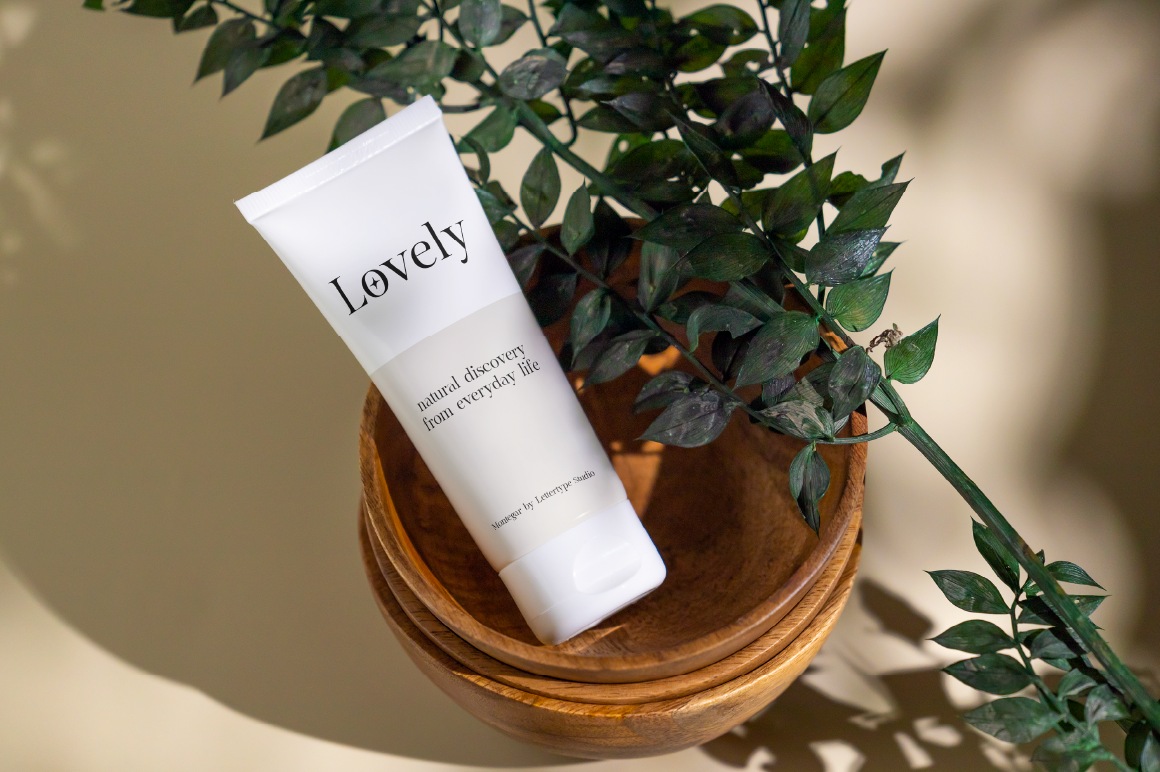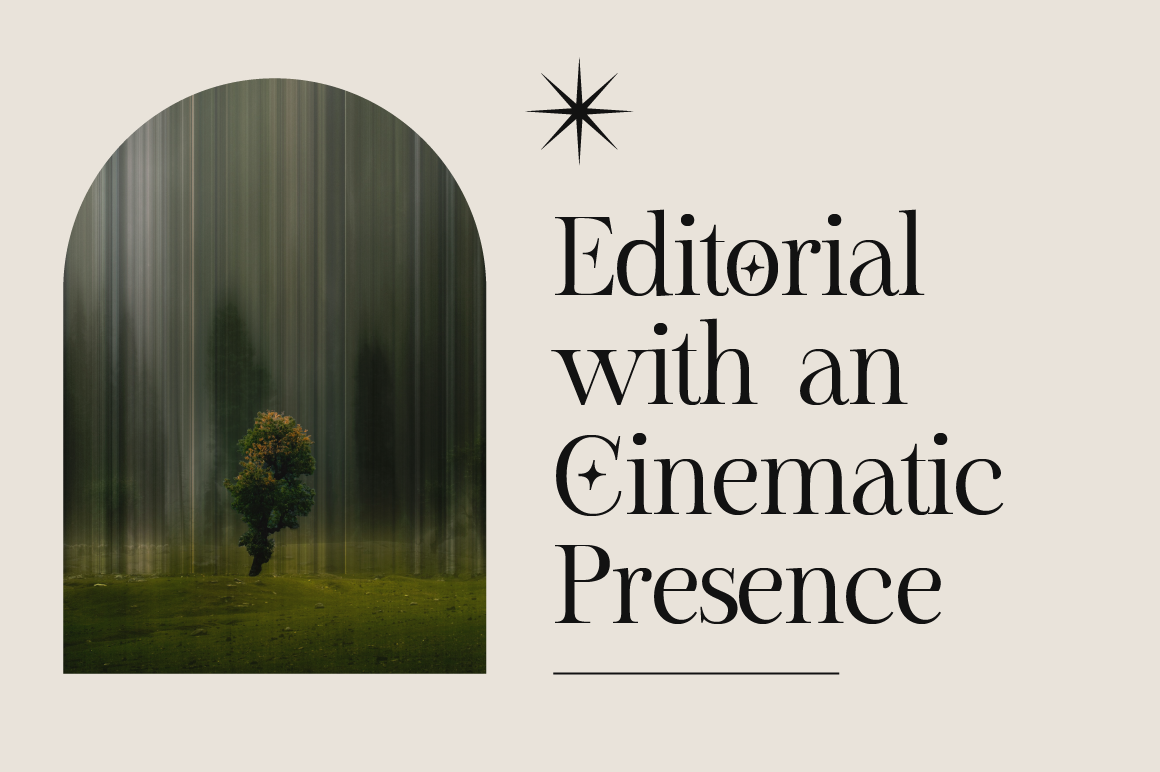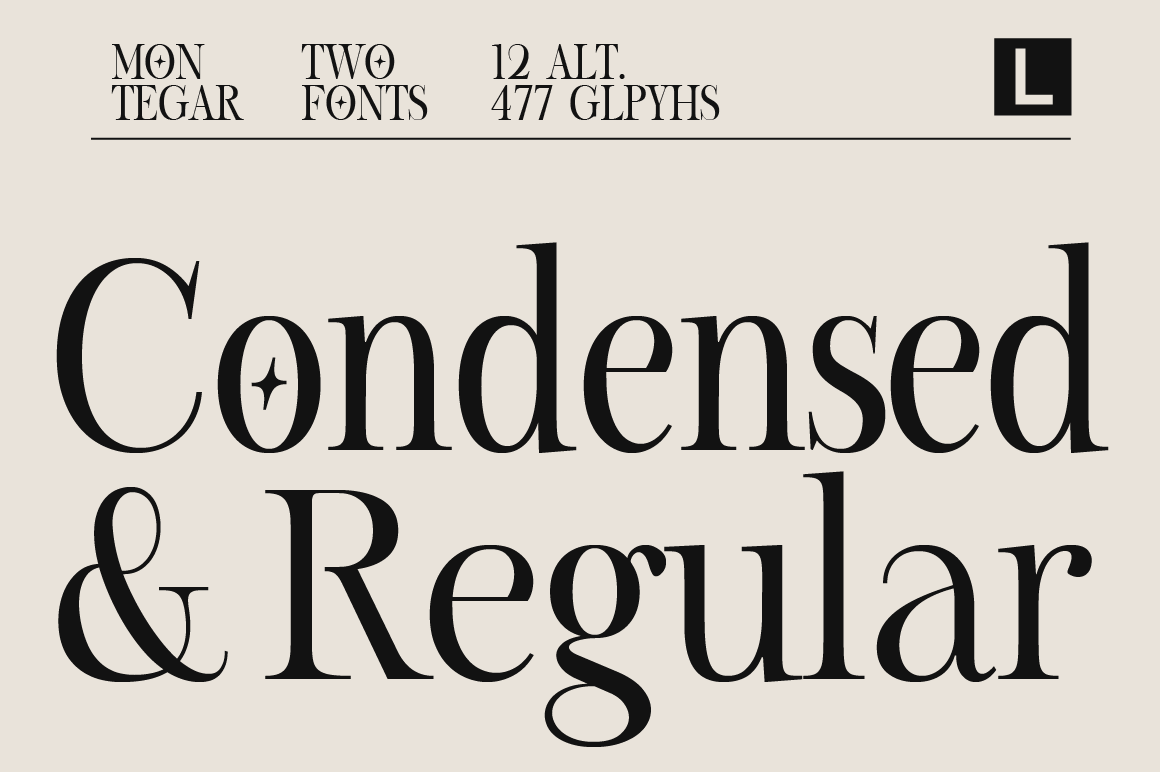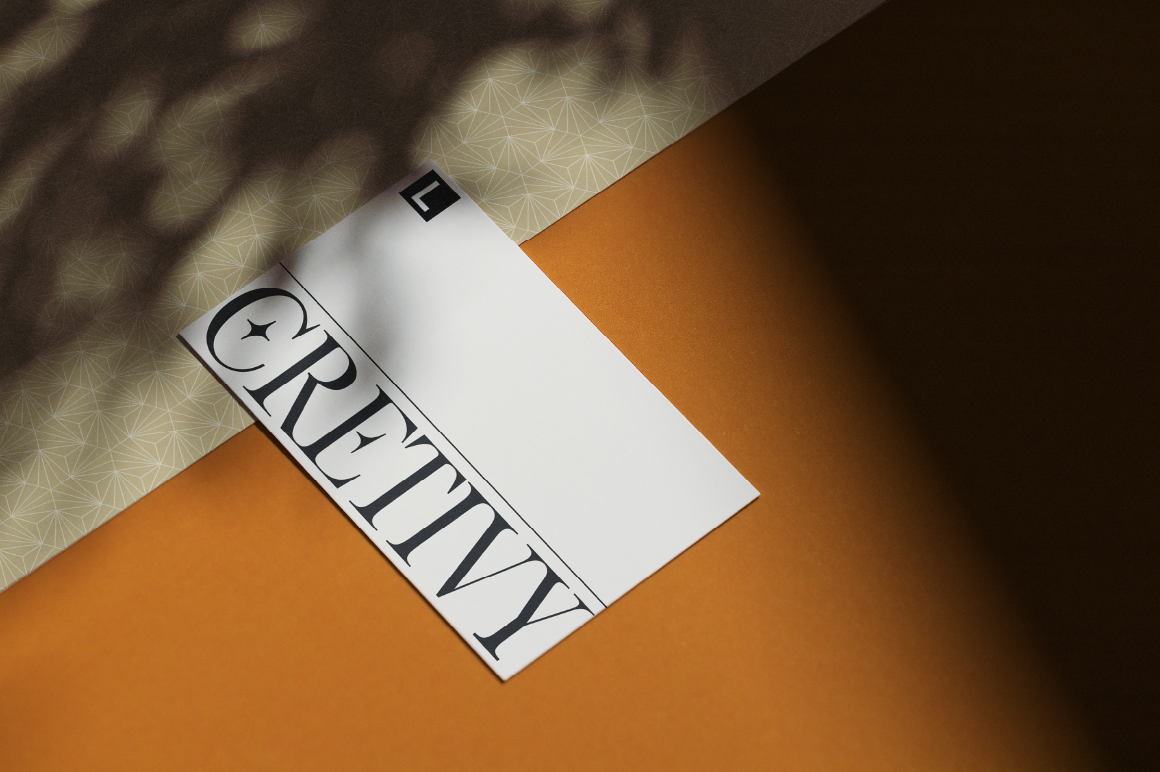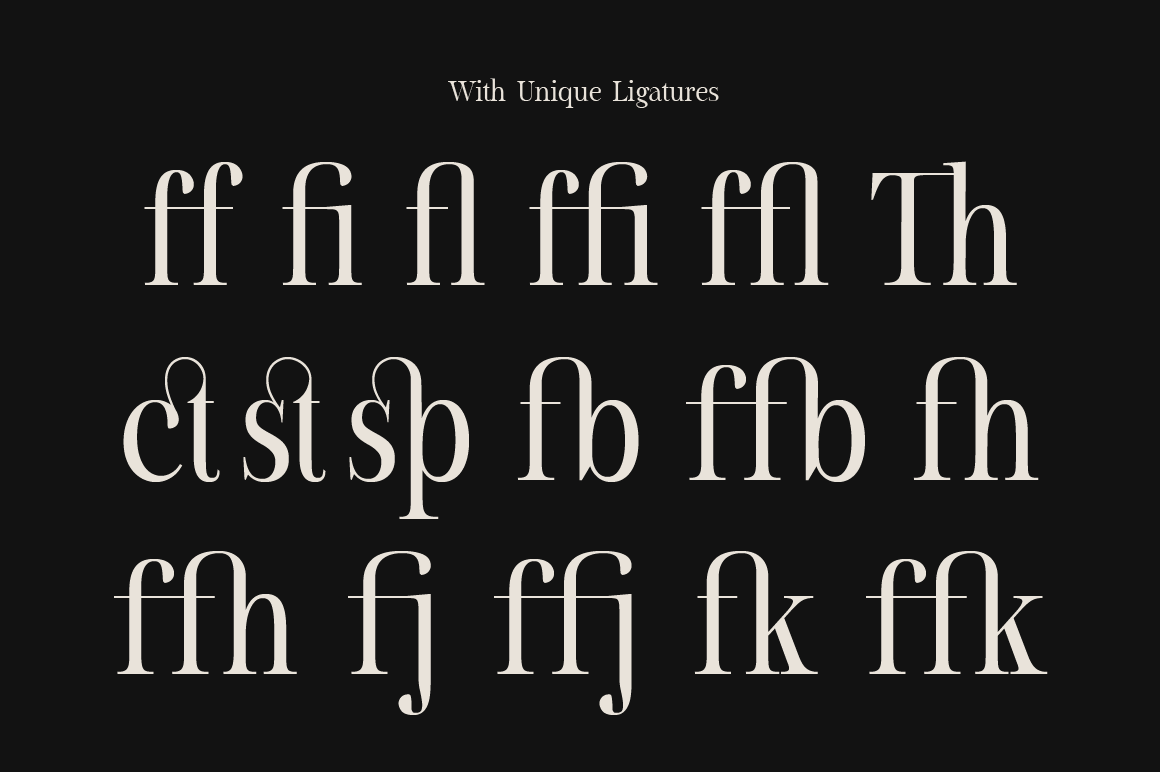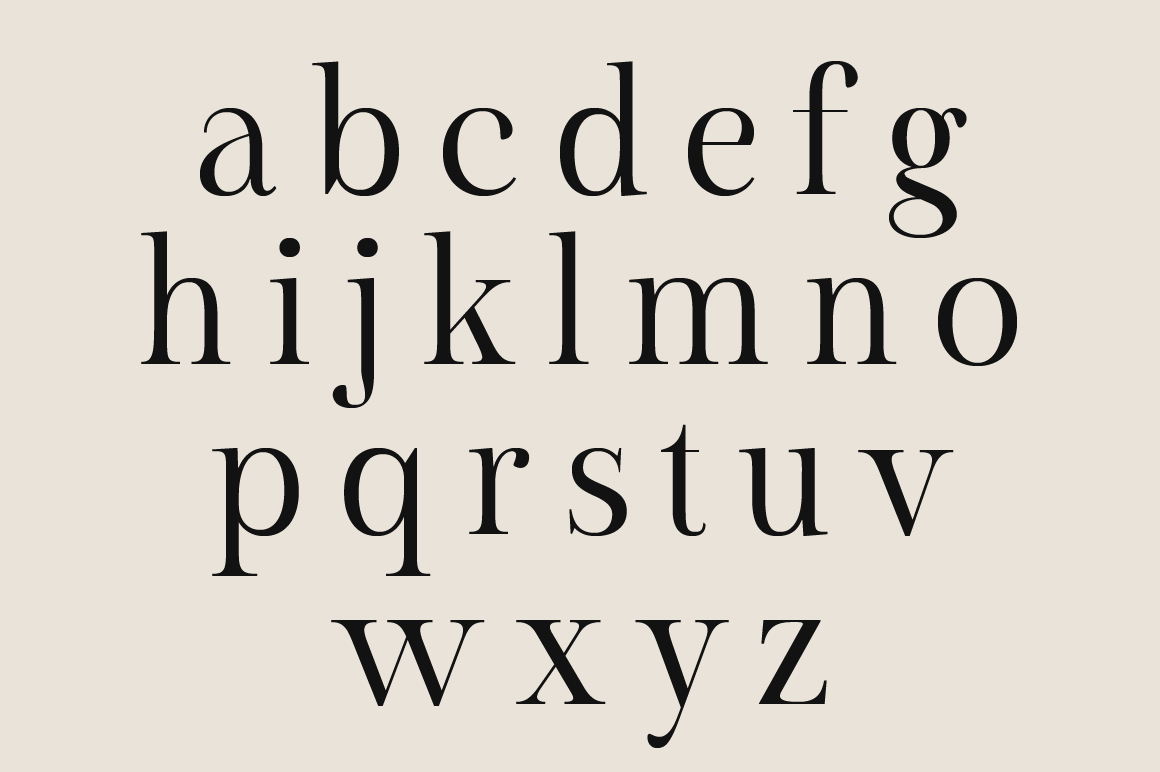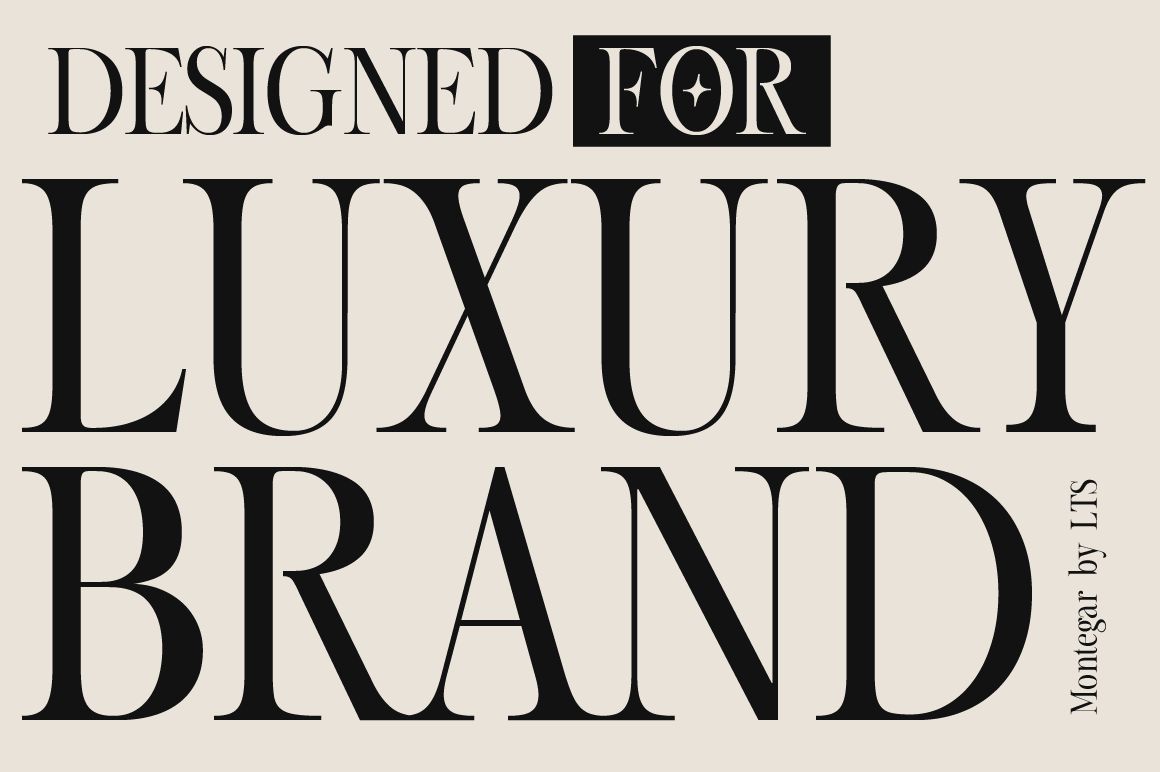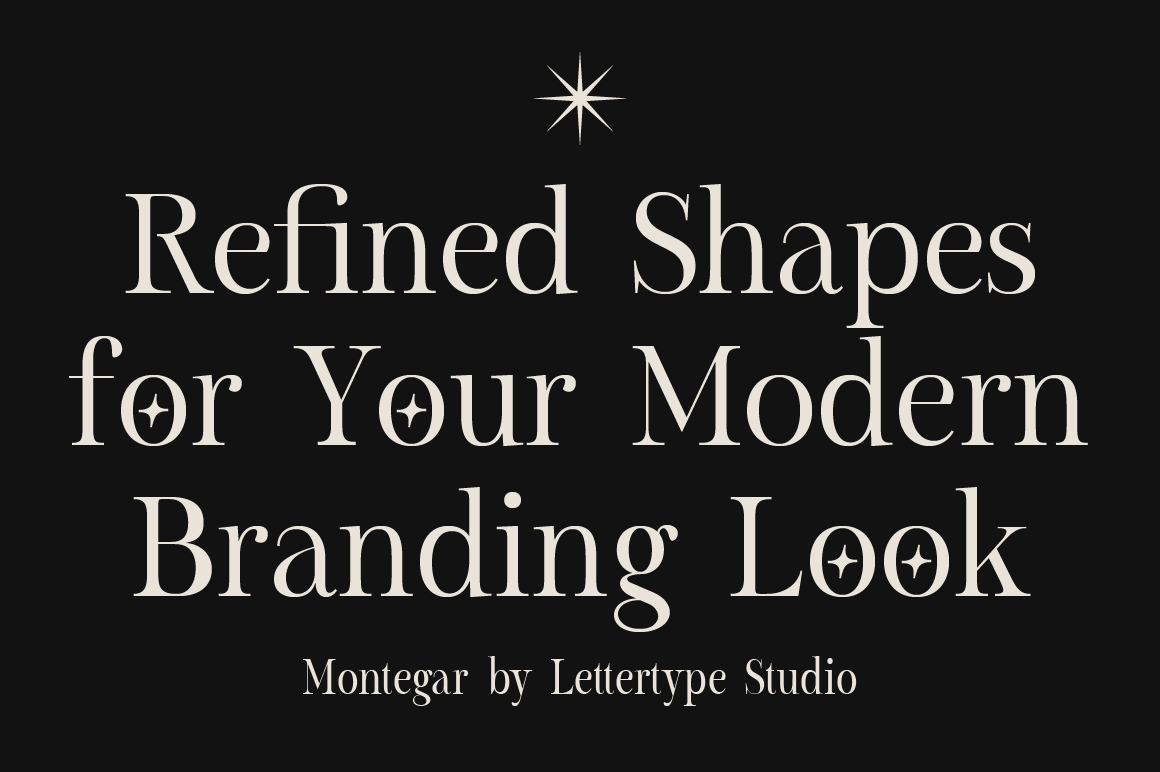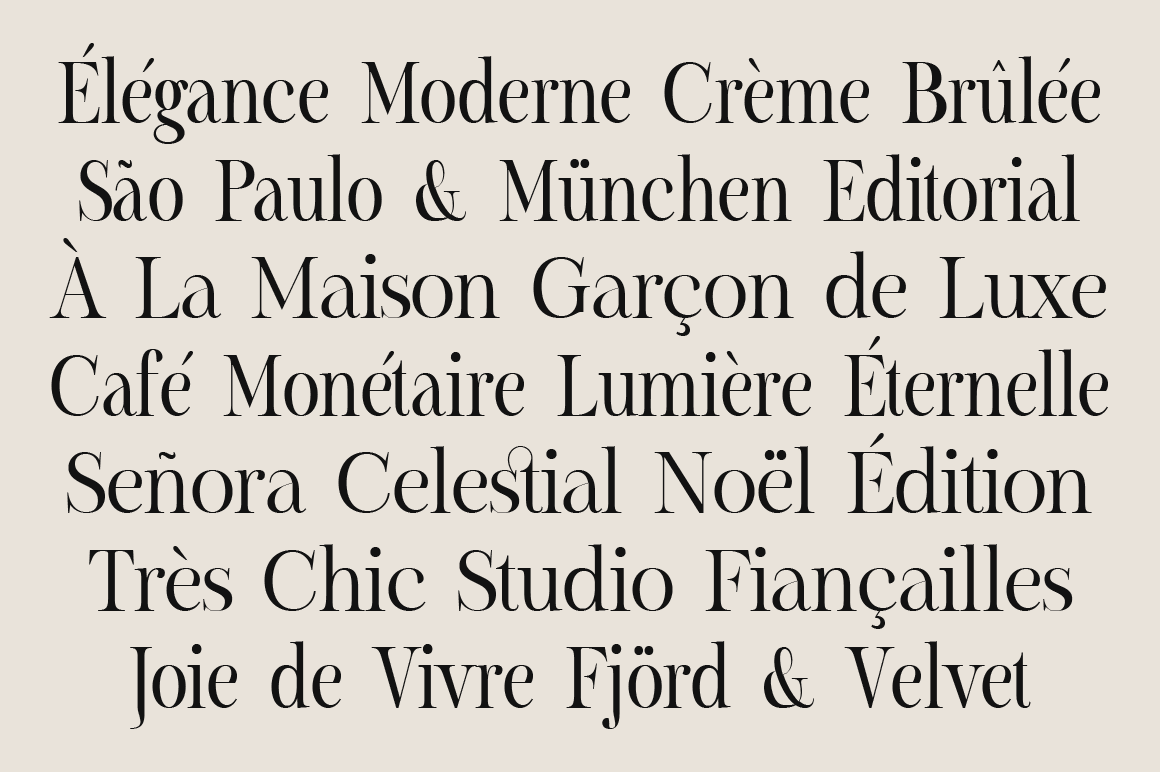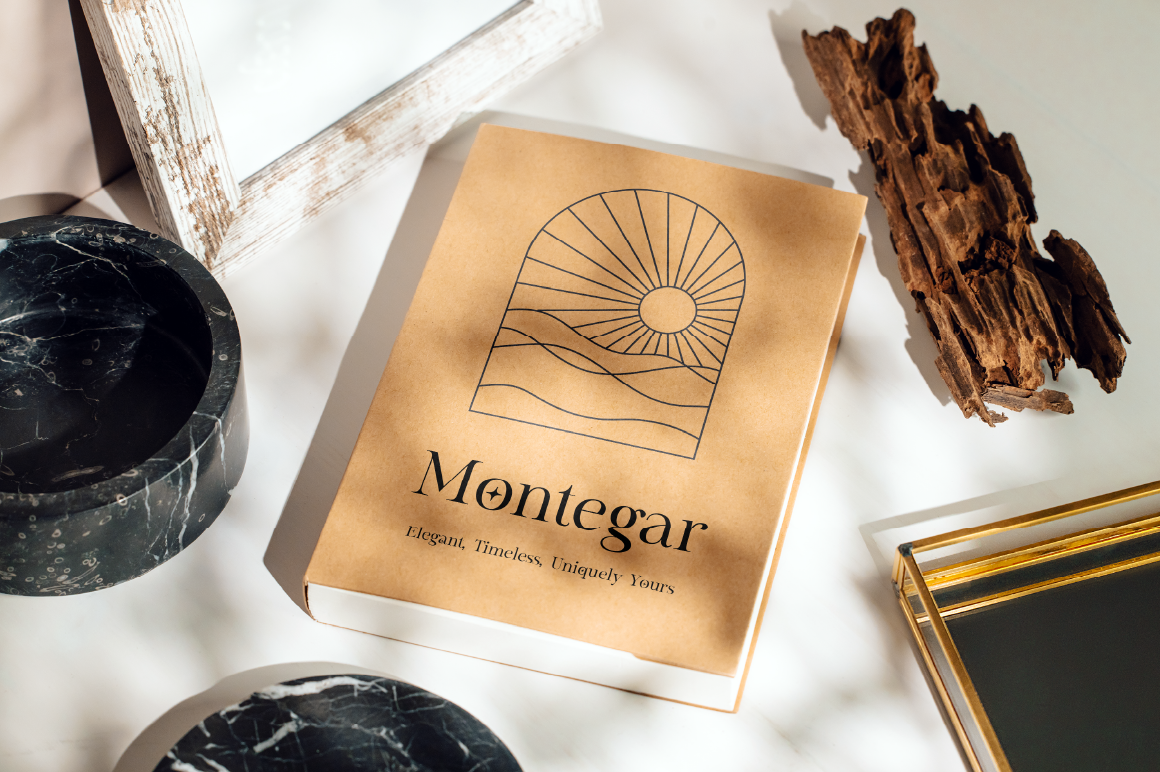
Montegar
Montegar is a high-contrast serif typeface designed with a modern editorial approach and a luxurious cinematic atmosphere. Developed from a refined serif skeleton and expanded into its own artistic direction, Montegar combines sharp elegance, spacious rhythm, and subtle celestial detailing to create a sophisticated premium display font. The result feels fashionable yet restrained, decorative yet highly usable for real-world branding systems.
Its signature visual language comes from the combination of dramatic serif cuts and selective star-inspired details integrated into key glyphs. Rather than becoming overly ornamental, these features create a memorable identity system that feels exclusive and intentional. Montegar works beautifully for perfume branding, wine labels, luxury packaging, fashion editorials, jewelry campaigns, hospitality identities, and cinematic title treatments.
Montegar also includes a Condensed style variation designed for stronger headline impact and premium vertical rhythm. The condensed direction enhances the cinematic elegance of the typeface while preserving readability and breathing room, making it ideal for posters, magazine covers, logo systems, social campaigns, and modern luxury visual identities.
Montegar Features:
• 2 Styles
• Regular & Condensed
• 12 Alternates & 17 Unique Ligatures
• 477 Glyphs Total
• 260+ Languages Support
Perfect For:
• Luxury Branding
• Fashion Editorial
• Perfume & Beauty Packaging
• Cinematic Posters
• Boutique Hospitality Identity